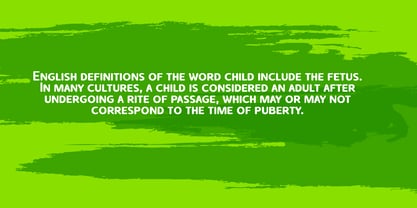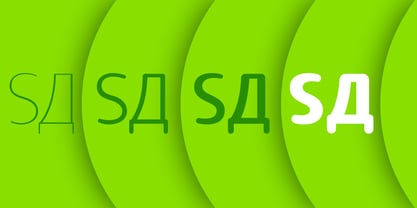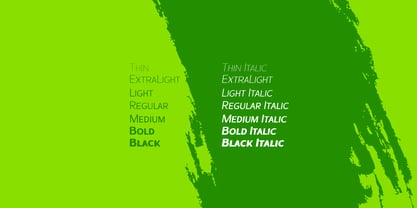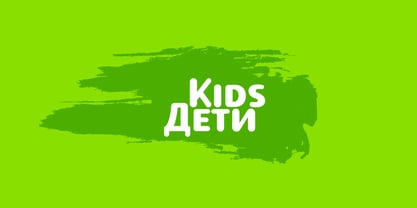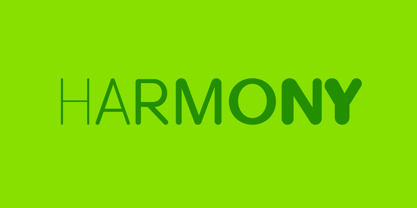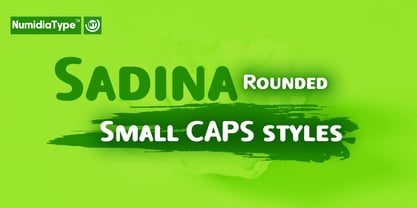
Sadina Rounded Small CAPS
par NumidiaType
La famille de polices Sadina Rounded Small CAPS a été conçue par Yassine Abdi et publiée par NumidiaType. Sadina Rounded Small CAPS contient 14 styles et options de package familial. En savoir plus sur cette famille
Sadina™ Rounded Small CAPS is a modern rounded typeface that blends contemporary style with classic elegance. Featuring refined small caps, strong readability, and support for Western European and Cyrillic languages, it works well for display, text, web, print, branding, UI/UX, and editorial projects. With clean lines, approachable forms, and professional OpenType features, it offers a versatile balance of character, sophistication, and functionality.
Concepteurs: Yassine Abdi
Fonderie: NumidiaType